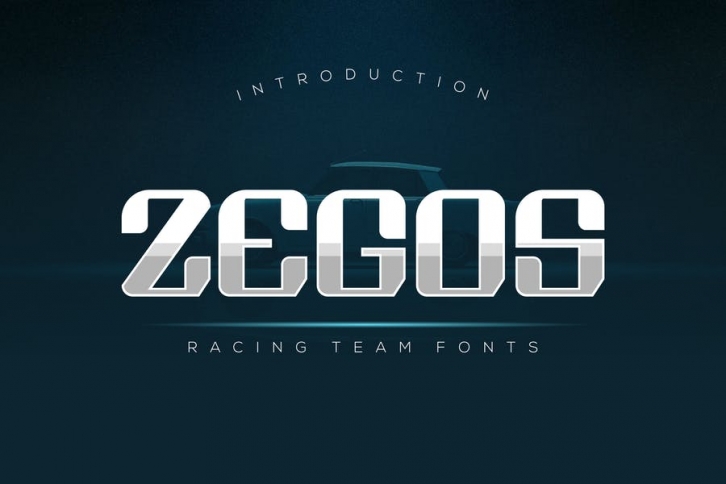
Introducing our new product Zegos Font - Modern Font
Zegos Font - Modern Font is a bold and authentic display font. The font is suitable for any branding project like logo, t-shirt printing, esport, and many more. outstanding in a wide range of contexts.